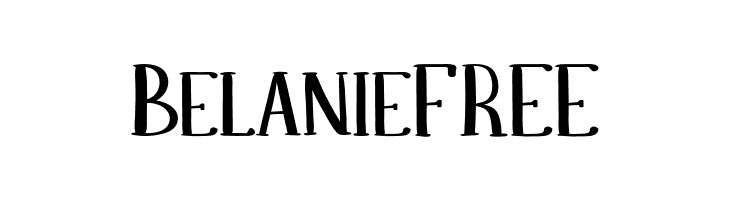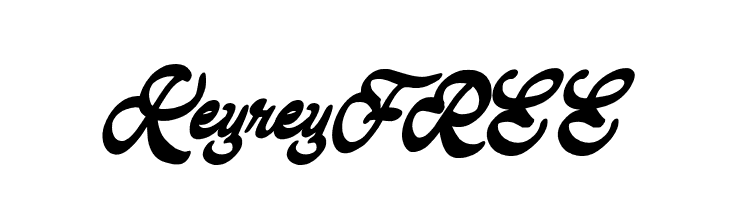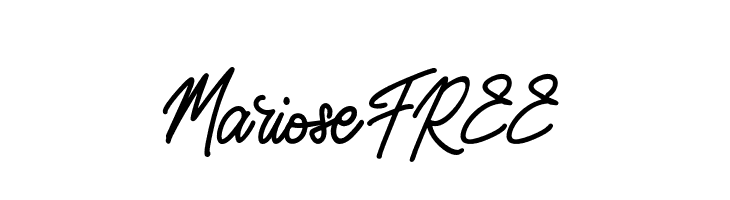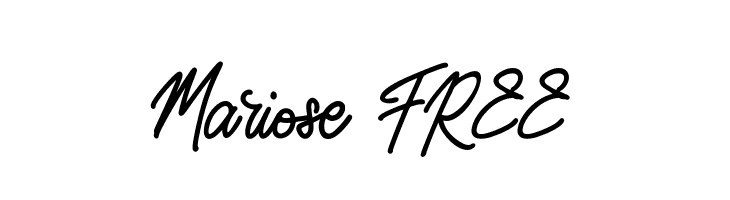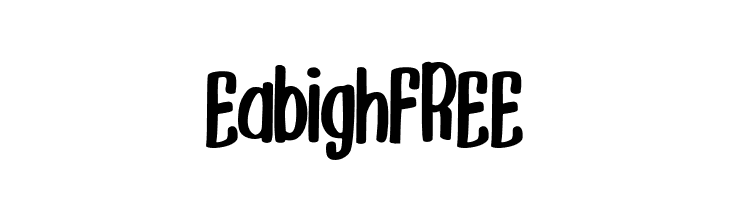
A whimsical and playful script font with a bold, hand-drawn style.
A bold, whimsical font with elegant curves and a modern touch.
A bold, artistic font with tall, narrow letters and unique serifs.
A bold, flowing script font with elegant, cursive letterforms and ornate flourishes.
A bold, expressive script font with flowing cursive letters and high contrast.
A dynamic and fluid script font with elegant, flowing letterforms and expressive swashes.
A dynamic and flowing script font with elegant cursive strokes.
A playful, bold font with rounded strokes and a friendly appearance.
A bold, playful font with rounded edges and a slightly condensed form.
A dynamic script font with elegant, flowing cursive letterforms.